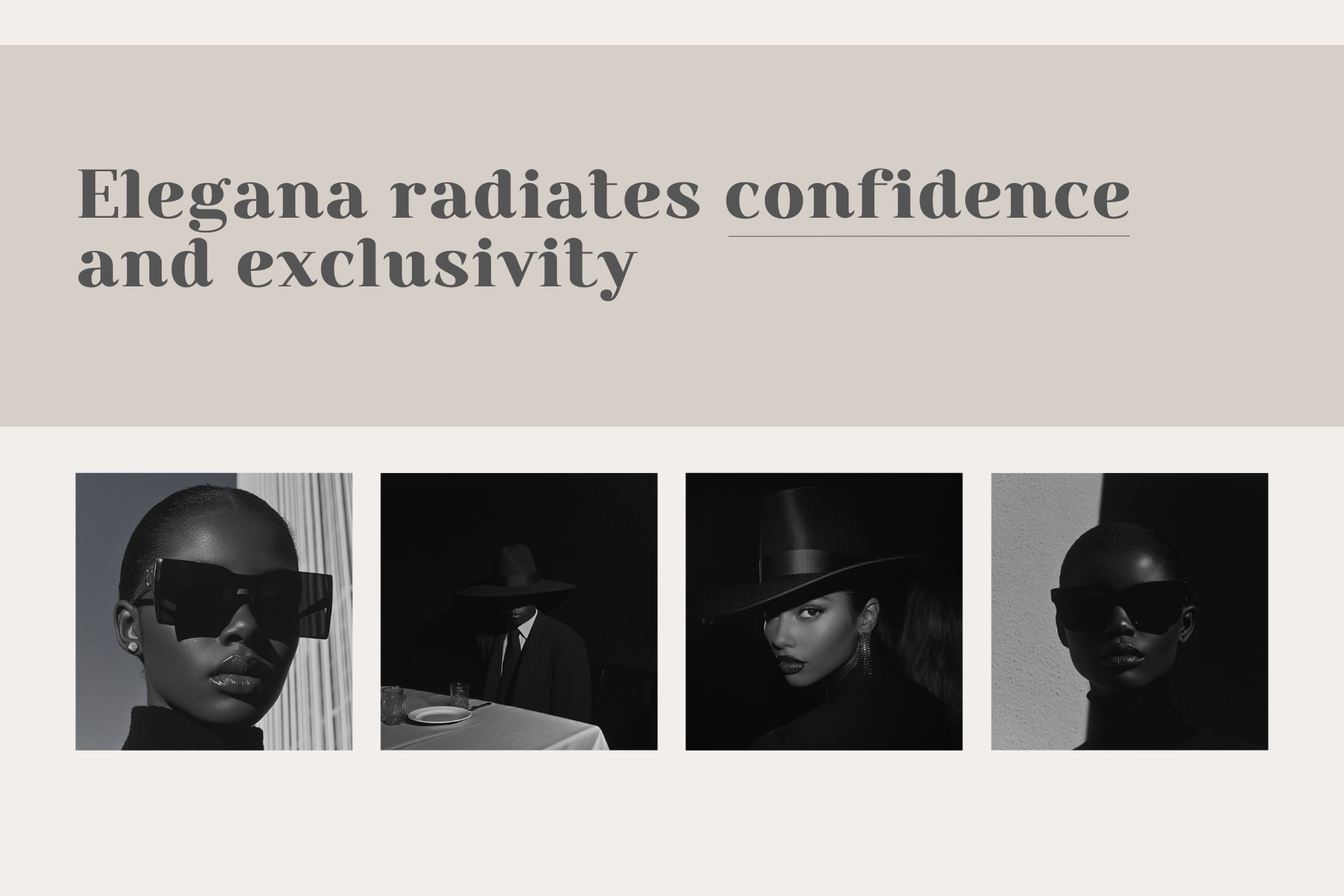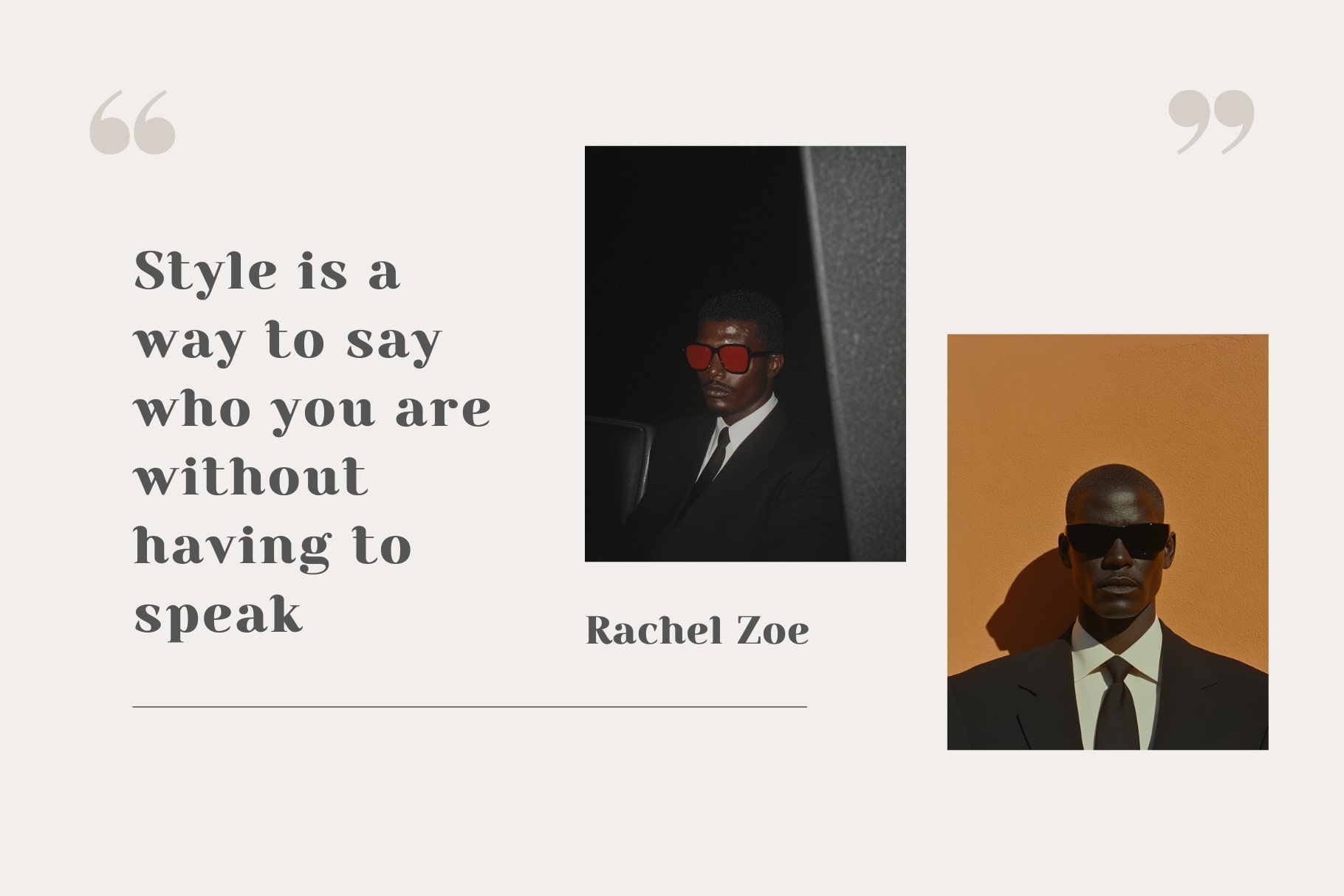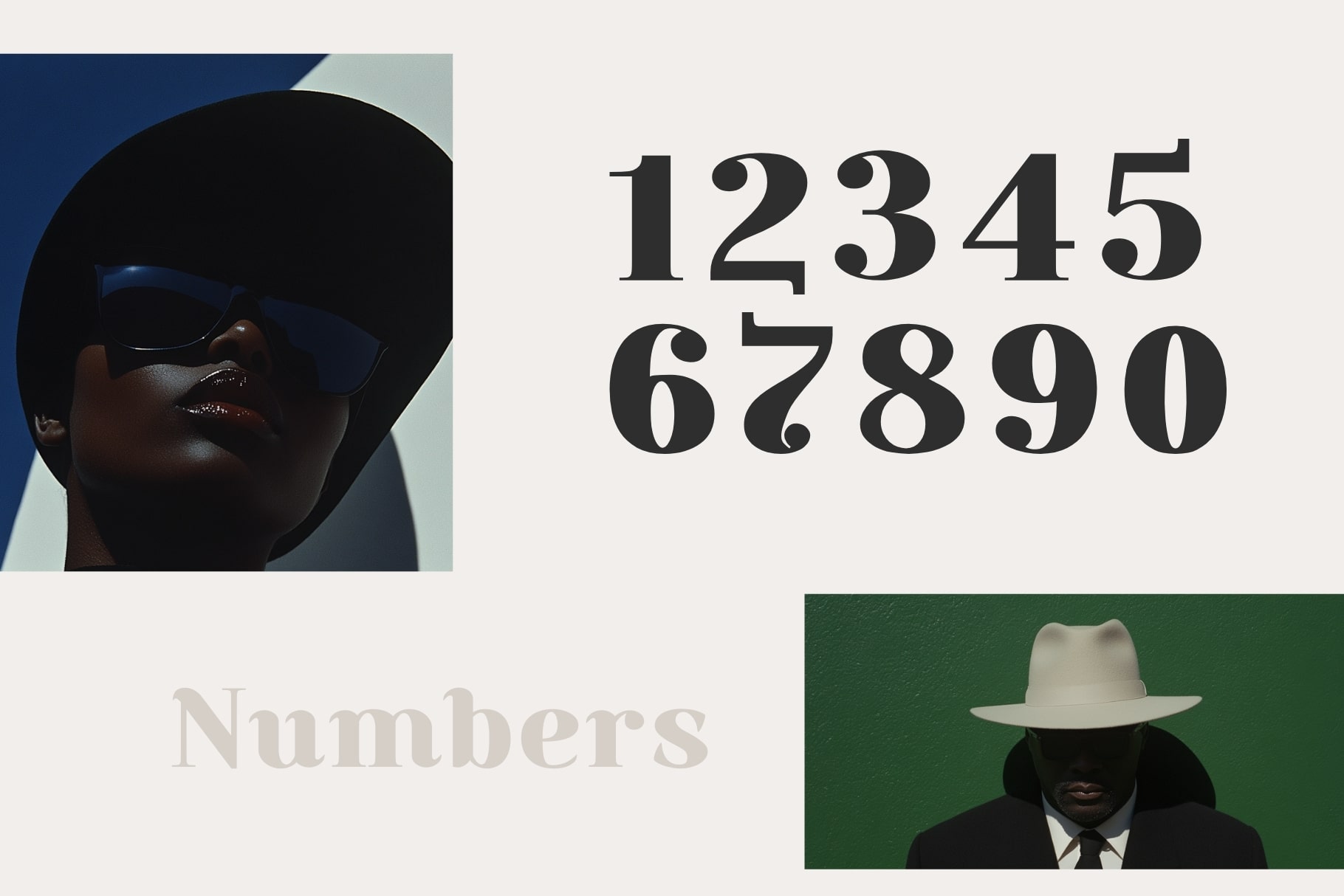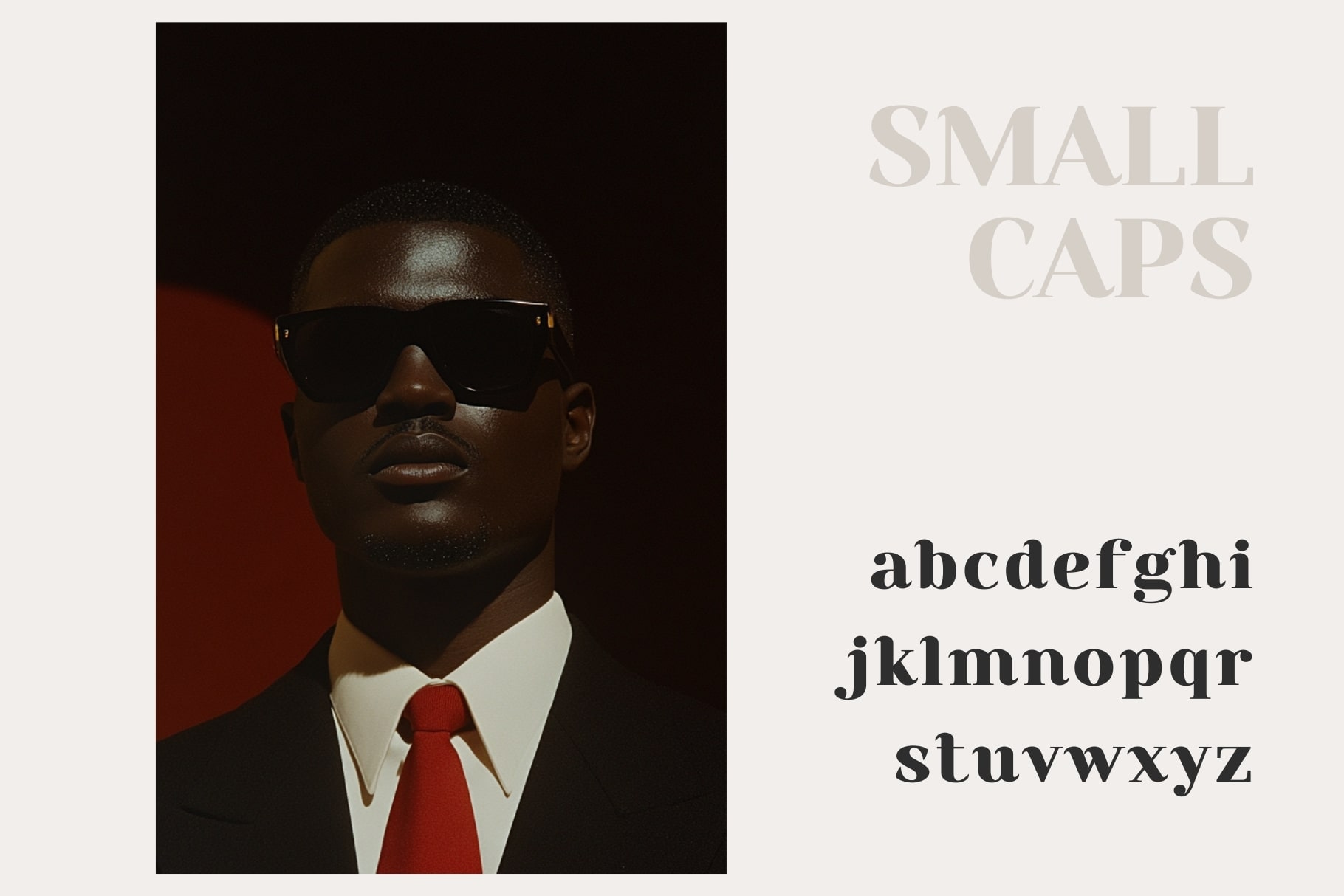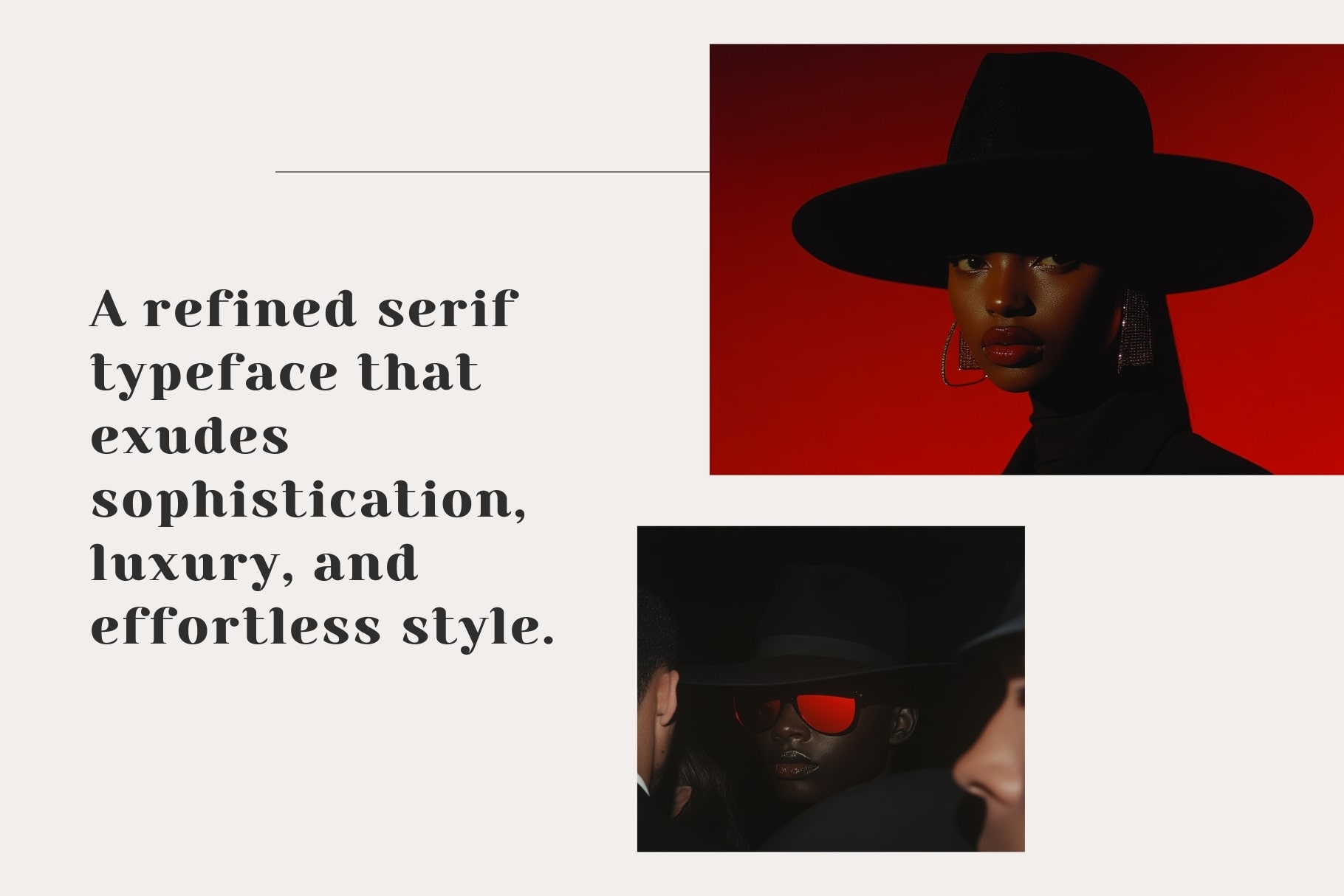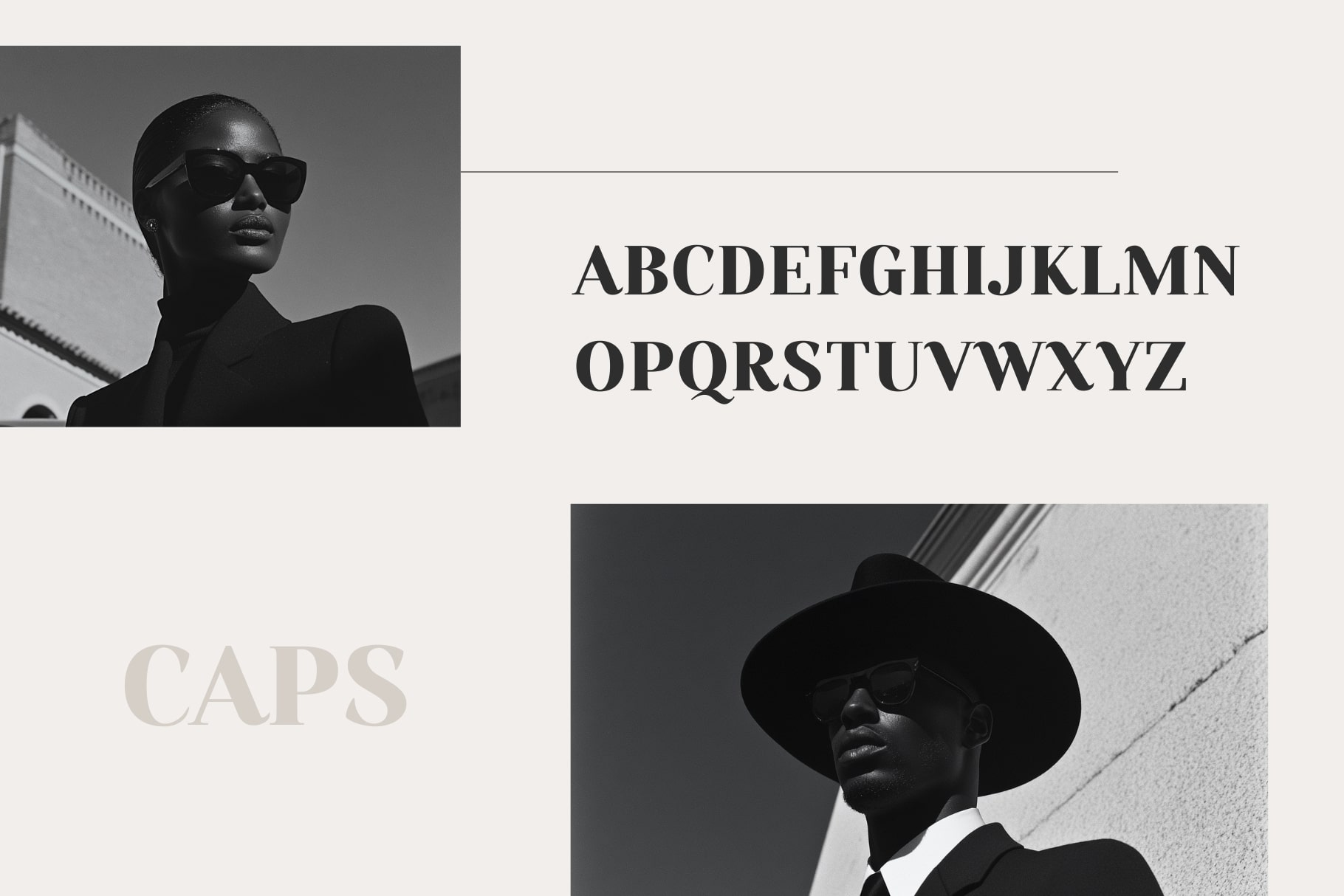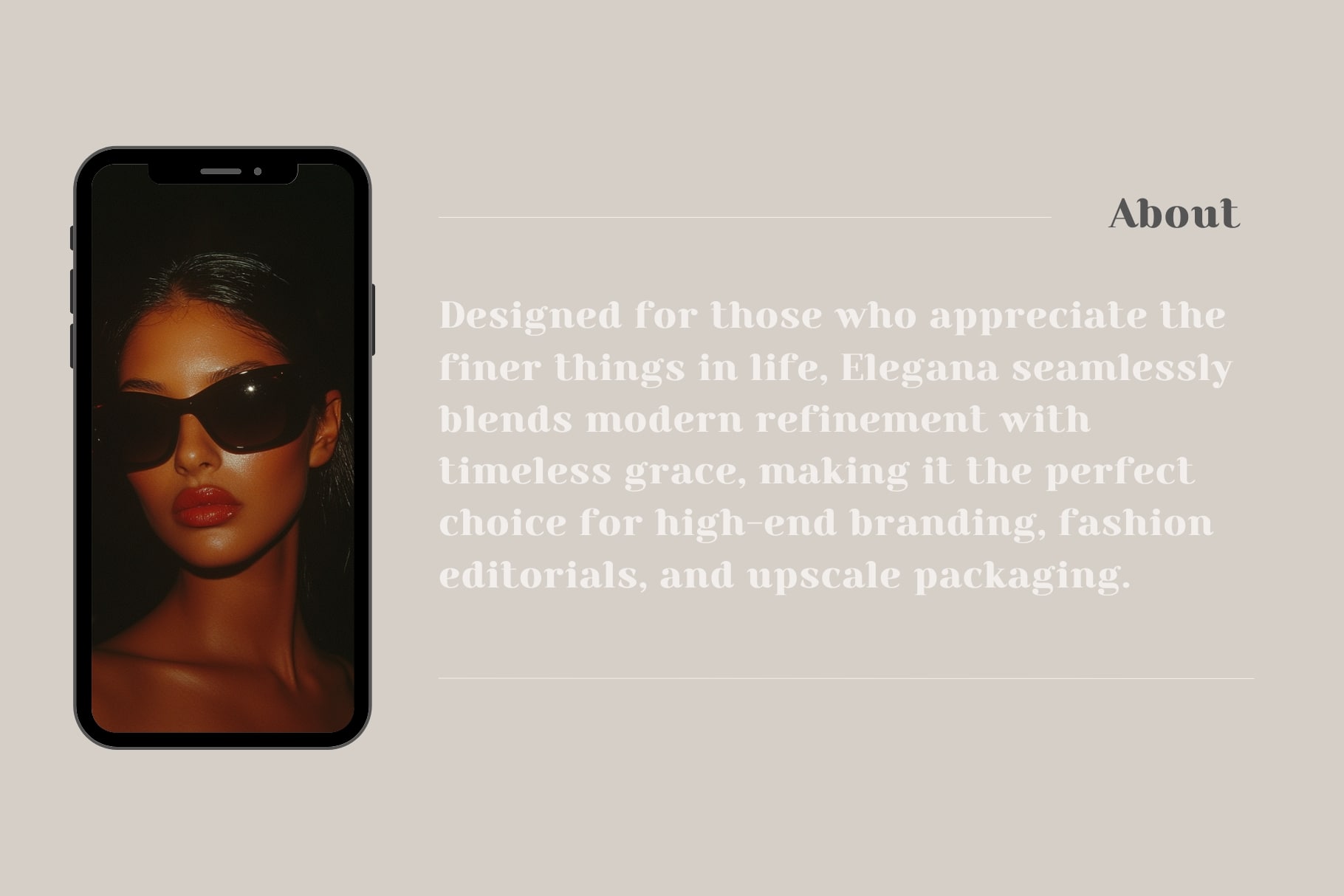
Introducing Elegana, a refined serif typeface that exudes sophistication, luxury, and effortless style. Designed for those who appreciate the finer things in life, Elegana seamlessly blends modern refinement with timeless grace, making it the perfect choice for high-end branding, fashion editorials, and upscale packaging.
With its sleek, well-balanced letterforms and exquisite details, Elegana radiates confidence and exclusivity. Whether gracing the pages of a luxury magazine, adorning a designer label, or elevating a fashion campaign, this typeface ensures your designs command attention with an air of prestige.
Versatile yet distinctive, modern yet classic—Elegana is the ultimate statement of elegance.